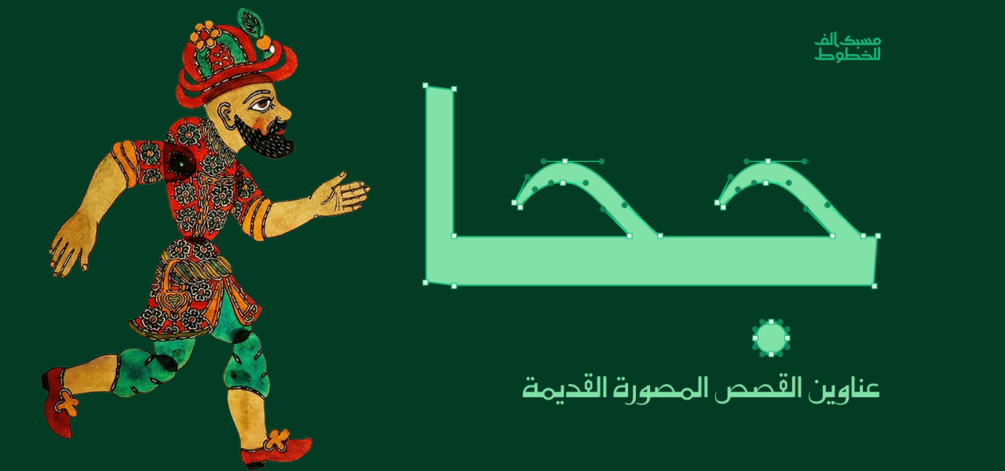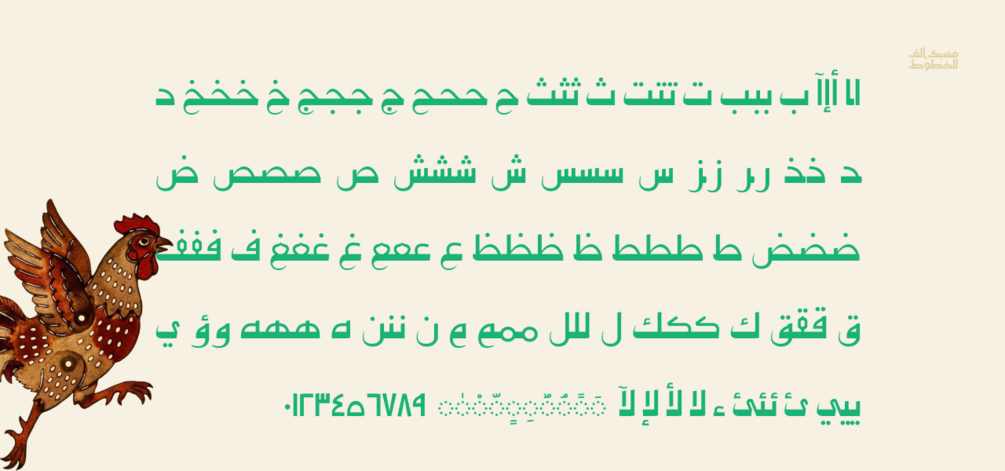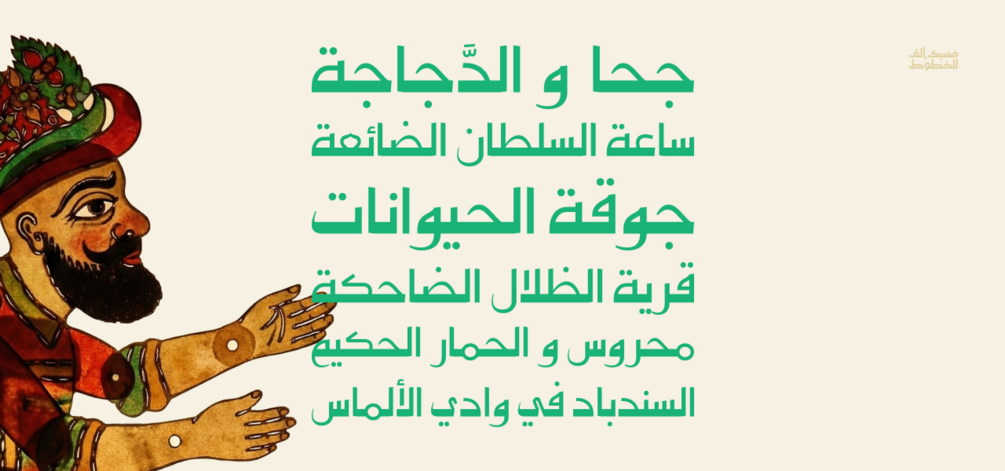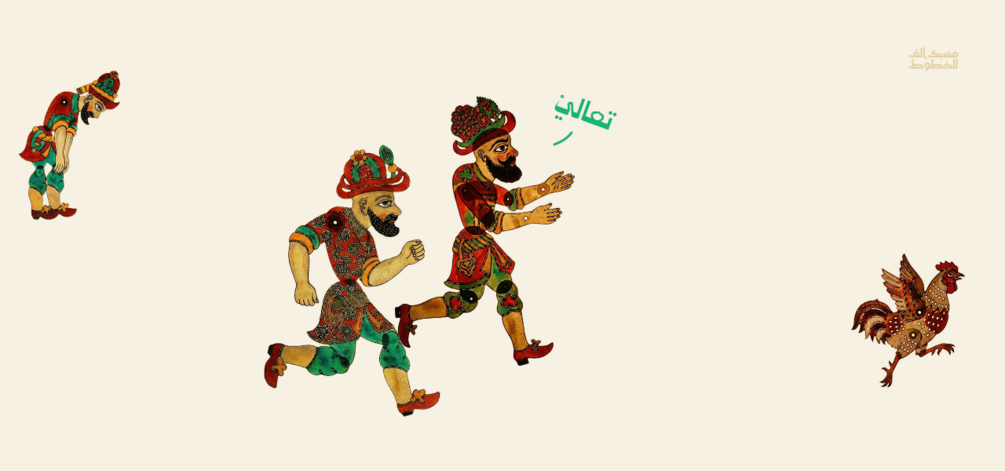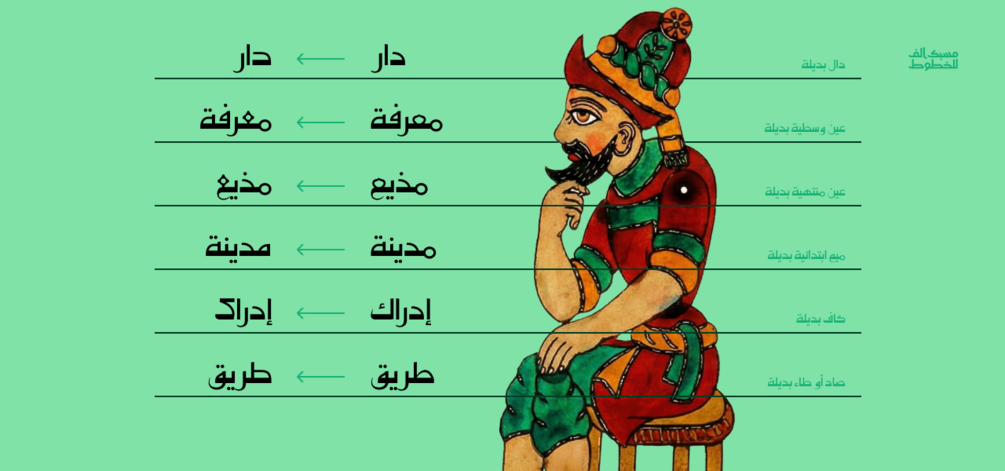
Juha جحا
Juha جحا is a free single-weight Arabic display typeface inspired by classic children’s storybook and comic titles. Its forms are simple, friendly, and highly readable, with steady rhythm and generous spacing that make it comfortable for young readers while giving designers a warm, playful voice to work with.
Juha جحا is ideal for children’s book covers, story titles, educational materials, posters, and branding projects that need a nostalgic story feel wrapped in a clean, contemporary style. One weight, strong personality, and a charming tone that makes every title feel like the beginning of a new adventure.
Juha جحا هو خط عرض عربي مجاني بوزن واحد، مستوحى من عناوين القصص المصوّرة القديمة وحكايات الطفولة الكلاسيكية. حروفه بسيطة، مرِحة وواضحة، بإيقاع منتظم ومسافات مريحة تسهّل القراءة على الصغار وتمنح التصميم شخصية دافئة وحكّاءة.
يصلح Juha جحا لعناوين كتب الأطفال، أغلفة القصص، مجلات، منشورات تعليمية، بوسترات ومشاريع براندينغ تبحث عن روح قصصية أصيلة ولمسة حنين خفيفة مع أسلوب عصري نظيف. خط واحد، حضور قوي، وشخصية محبوبة تجعل كل عنوان يبدو كأنه بداية مغامرة جديدة.